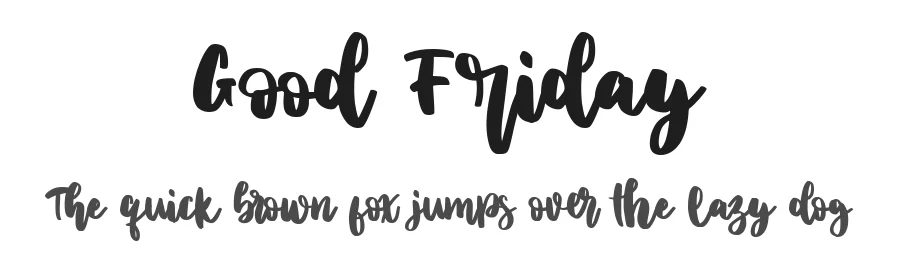
About Aprilia Font
Aprilia Specifications
| Font Family | Aprilia |
| Full Name | Aprilia |
| Glyph Count | 67 glyphs |
| Designer | Ana Natalia |
Aprilia supports 168 languages.
Aprilia Font is a script font that shines as a display or heading face. Pair it with a clean sans-serif or serif font for body text β the contrast creates a clear hierarchy while the two styles stay balanced and easy to read.